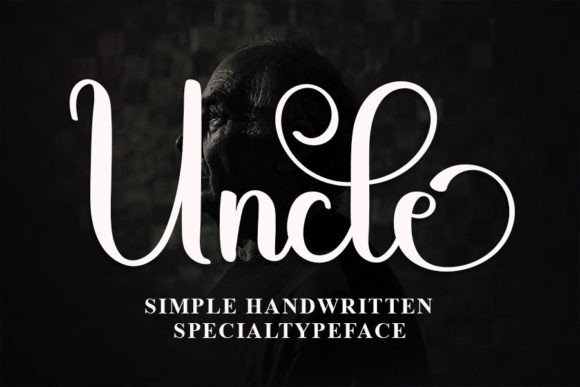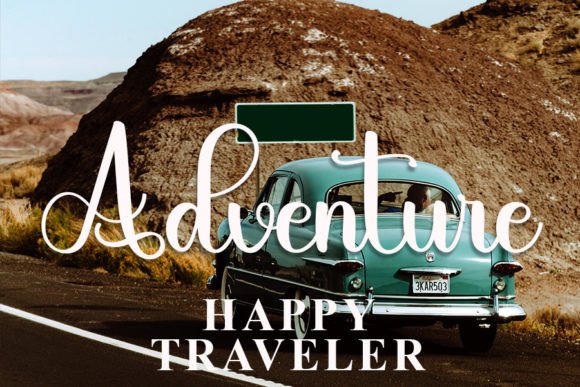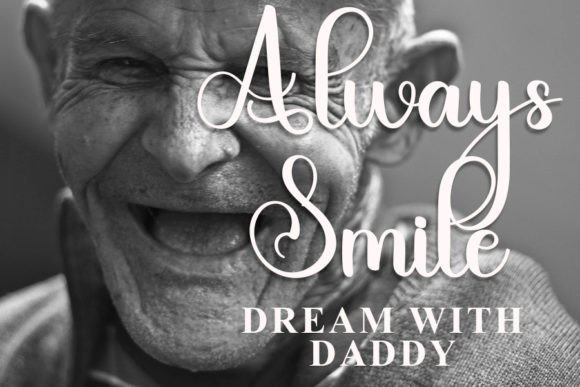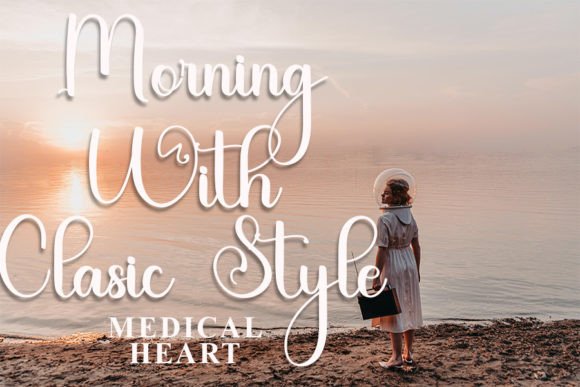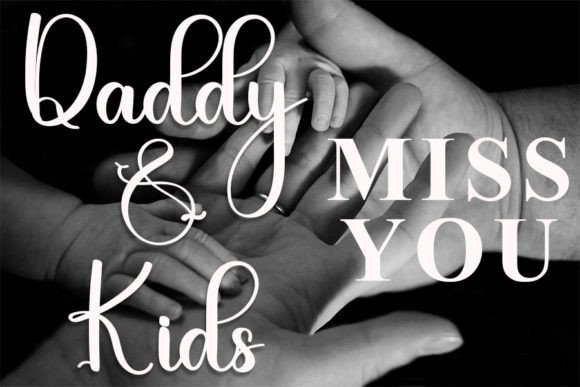
About Uncle Font
“Uncle” is a warm and approachable handwritten font that has been thoughtfully crafted to become a beloved favorite. Its friendly and inviting style makes it a versatile choice that can breathe life into a wide range of creative projects, adding a touch of charm and personality to each one.
In the realm of design, “Uncle” can serve as a valuable addition to your font library. Its versatility allows it to enhance a variety of creative endeavors, from graphic design to typography and beyond.
For branding and logo design, “Uncle” offers a unique and friendly option. It can help brands establish a relatable and approachable image, making it an excellent choice for businesses that want to connect with their audience on a personal level.
In print materials such as posters, flyers, and promotional materials, this font can add a touch of character and warmth. Its handwritten style exudes a sense of authenticity and human touch, making it especially effective in capturing attention and conveying messages effectively.
“Uncle” can also be employed for personal projects such as greeting cards, invitations, and stationery. Its friendly and inviting appearance can make your messages more heartfelt and engaging, making it suitable for a variety of occasions.
Overall, “Uncle” is more than just a font; it’s a creative tool that brings a friendly and approachable vibe to your projects. Its adaptability and likable aesthetics make it a valuable asset for designers and individuals looking to infuse their work with warmth and charm, making all their creative endeavors come alive.